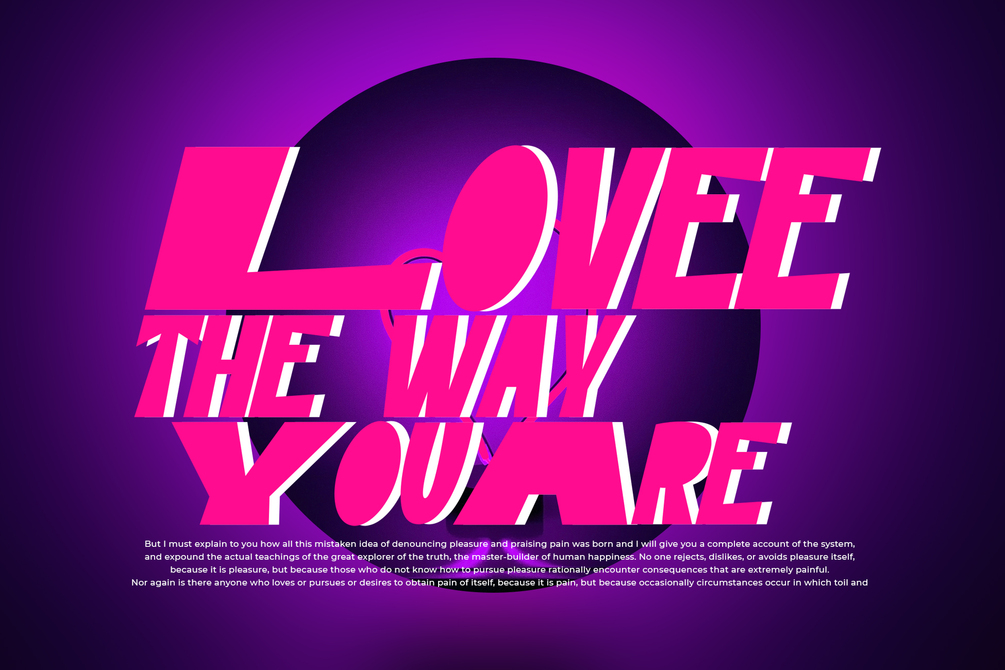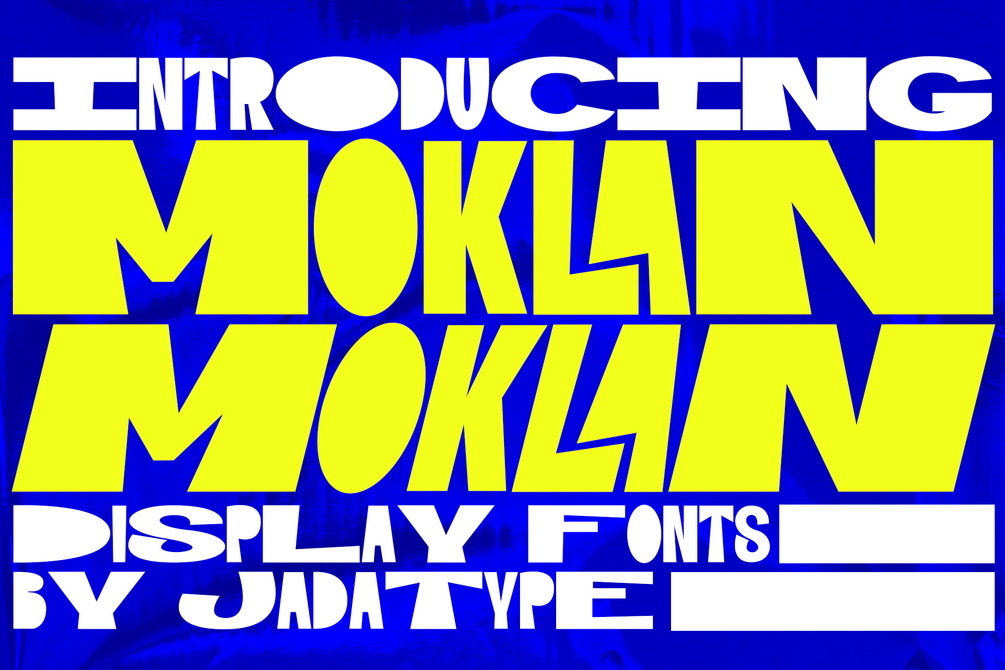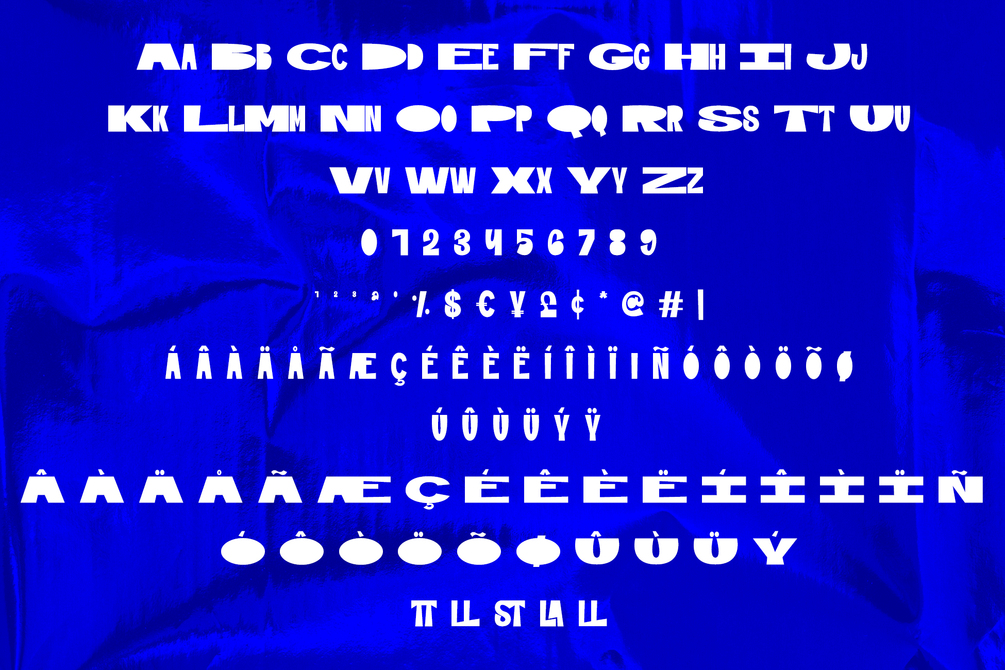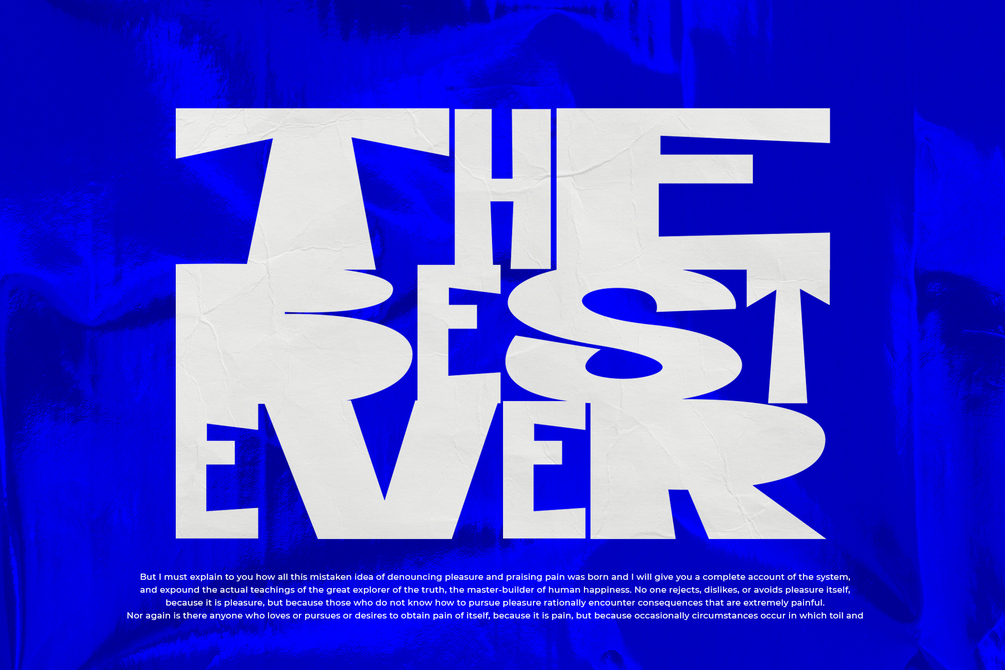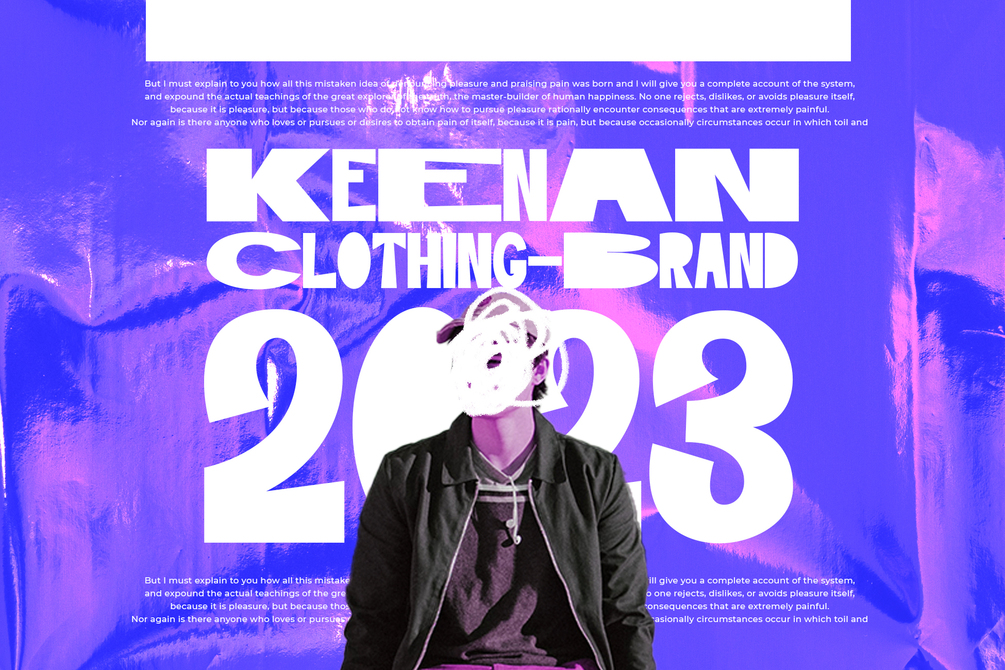
Moklan Font
Moklan is an all caps bold display font that has a funky and playful style. suitable for logotype, branding, social media, posters, advertisements, and so on. contains standard English letters, numbers, punctuation, and several accents that support multilingualism.